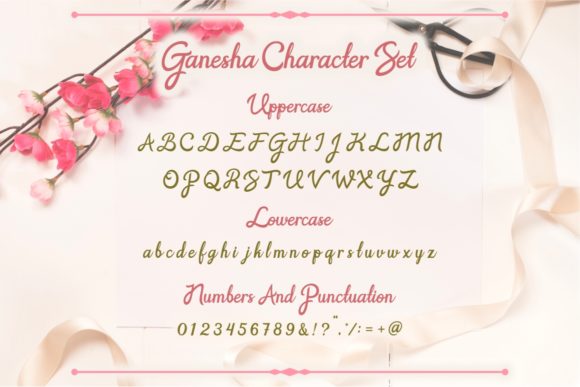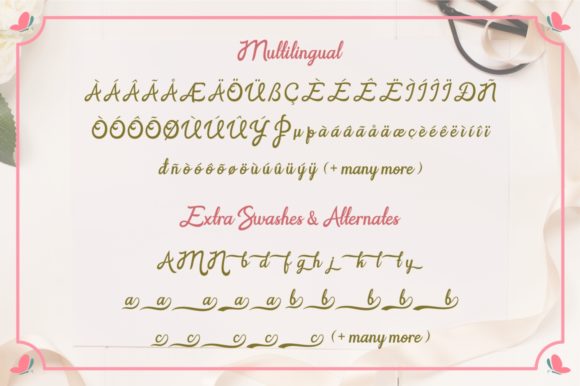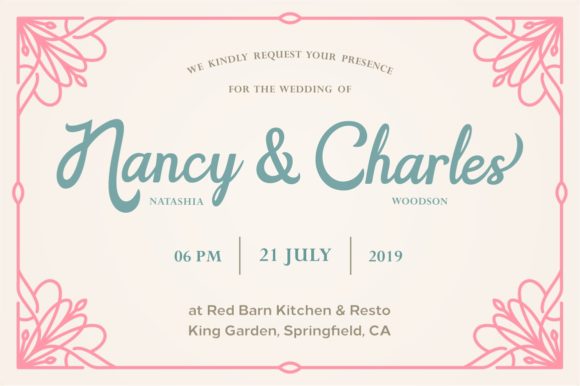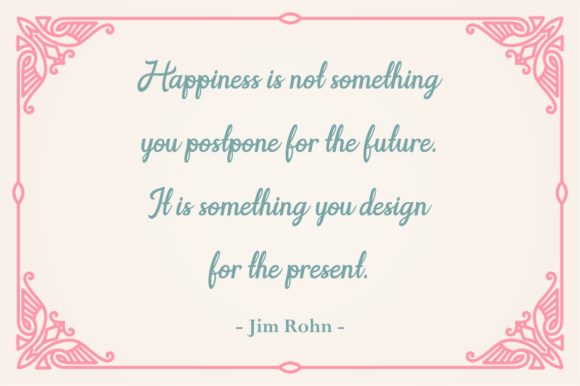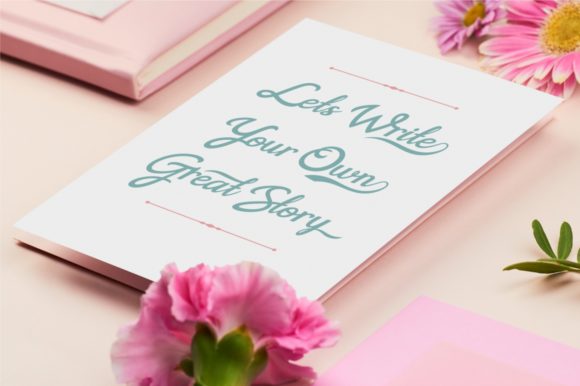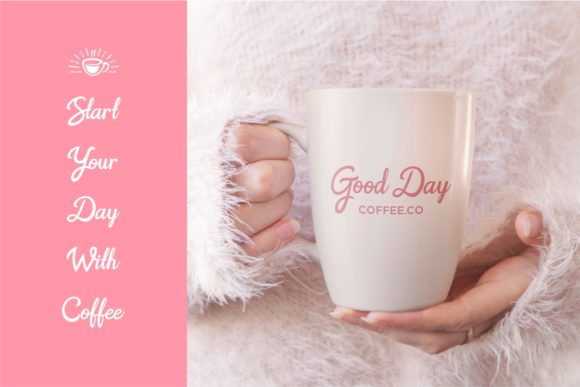
Ganesha Font: Elevate Your Designs with Elegance and Sophistication
In the world of typography, fonts play a crucial role in conveying the tone and personality of a design. For designers and crafters seeking to add a touch of luxury and elegance to their projects, the Ganesha Font is an excellent choice. This beautiful script font boasts unique curves and a bold feel, making it perfect for a wide range of applications, from branding and advertising to packaging and digital media.
The Beauty of Ganesha Font
Ganesha Font is a stunning script font that features intricate and flowing curves, giving it a distinctive and sophisticated look. The font’s unique design elements, such as its bold strokes and elegant swashes, make it stand out from other fonts in its category. The beautiful decorative flower frames that accompany the font perfectly enhance its luxurious character, adding an extra layer of elegance and refinement.
Key Features of Ganesha Font
- Unique Curves: Ganesha Font features beautiful, flowing curves that give it a distinctive and elegant look.
- Bold Feel: The font’s bold strokes and confident lines make it perfect for headlines, titles, and other design elements that require a strong presence.
- Decorative Flower Frames: The font comes with beautiful decorative flower frames that add an extra layer of luxury and sophistication to any design.
- Script Font: Ganesha Font is a script font, making it perfect for designs that require a touch of elegance and refinement.
Uses of Ganesha Font
Ganesha Font is a versatile font that can be used in a wide range of applications, including:
- Branding and Advertising: The font’s bold and elegant design makes it perfect for logos, billboards, and other advertising materials.
- Packaging: Ganesha Font is ideal for packaging designs that require a touch of luxury and sophistication, such as high-end product packaging and gift wrapping.
- Digital Media: The font’s clear and legible design makes it perfect for digital media, including websites, social media graphics, and email marketing campaigns.
- Stationery and Invitations: Ganesha Font is a great choice for stationery, invitations, and other paper goods that require a touch of elegance and refinement.
Tips for Using Ganesha Font
To get the most out of Ganesha Font, here are a few tips to keep in mind:
- Use it as a Headline Font: Ganesha Font is perfect for headlines and titles, where its bold and elegant design can make a strong impact.
- Pair it with a Simple Font: To create visual interest, pair Ganesha Font with a simple font, such as a sans-serif font, for body text.
- Experiment with Colors: Ganesha Font looks great in a variety of colors, so don’t be afraid to experiment and find the perfect color scheme for your design.
- Use the Decorative Flower Frames: The decorative flower frames that come with Ganesha Font are a great way to add an extra layer of elegance and sophistication to your design.
Ganesha Font is a beautiful and elegant script font that is perfect for designers and crafters seeking to add a touch of luxury and sophistication to their projects. With its unique curves, bold feel, and decorative flower frames, this font is sure to make a strong impact in any design. Whether you’re working on a branding project, packaging design, or digital media campaign, Ganesha Font is a great choice.